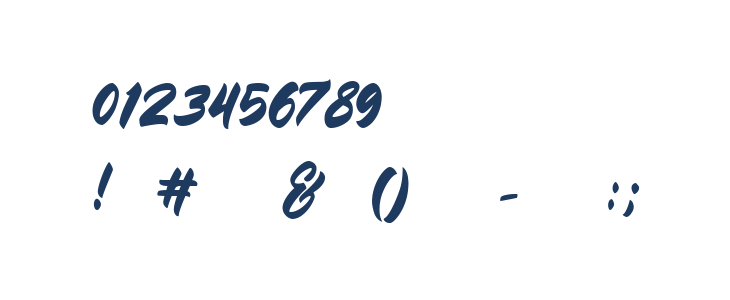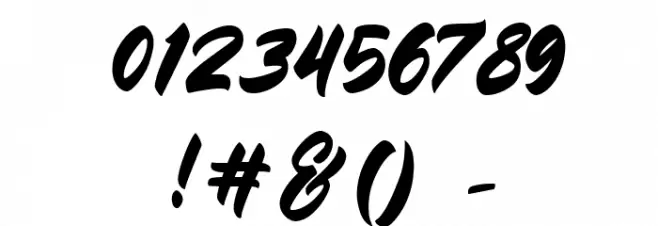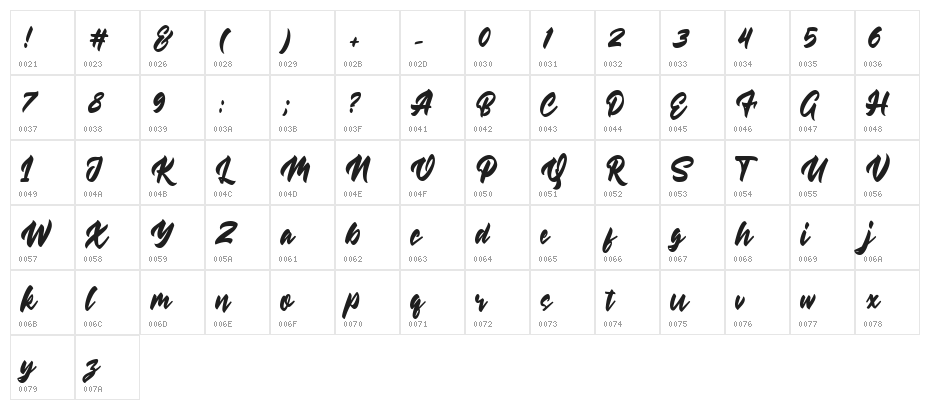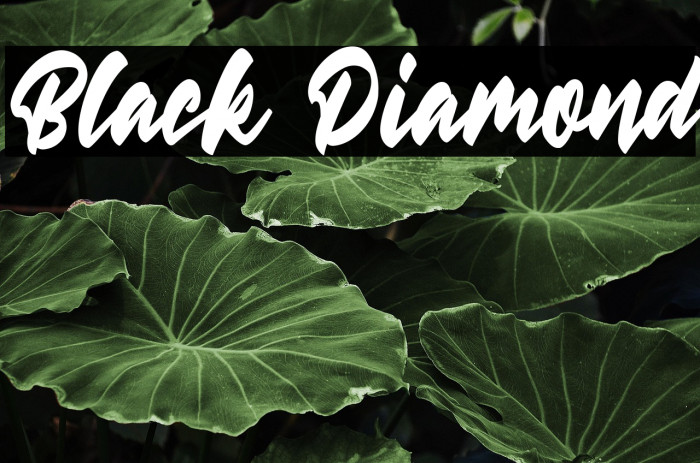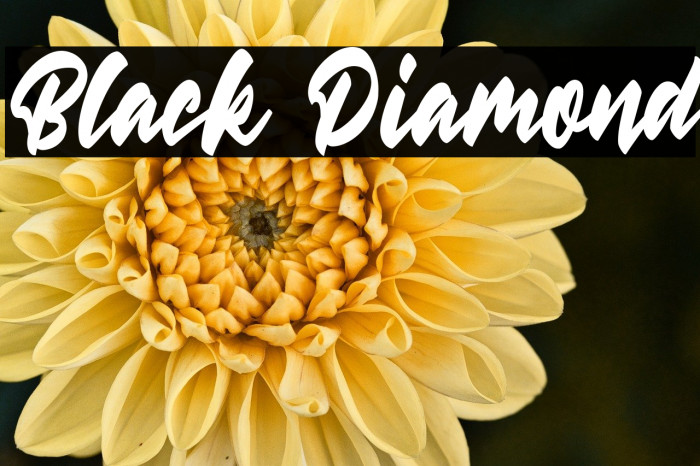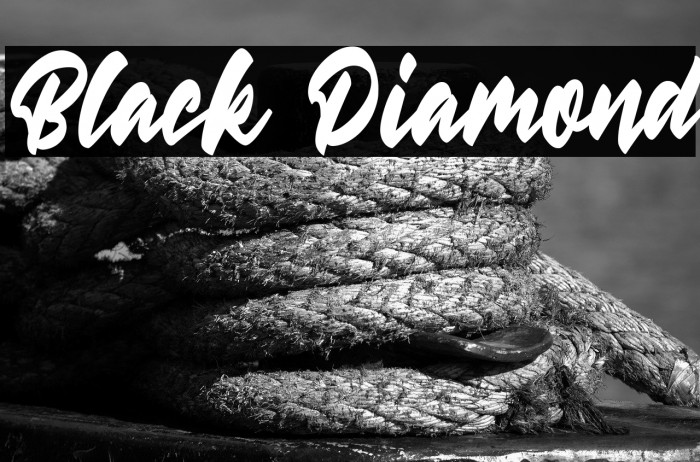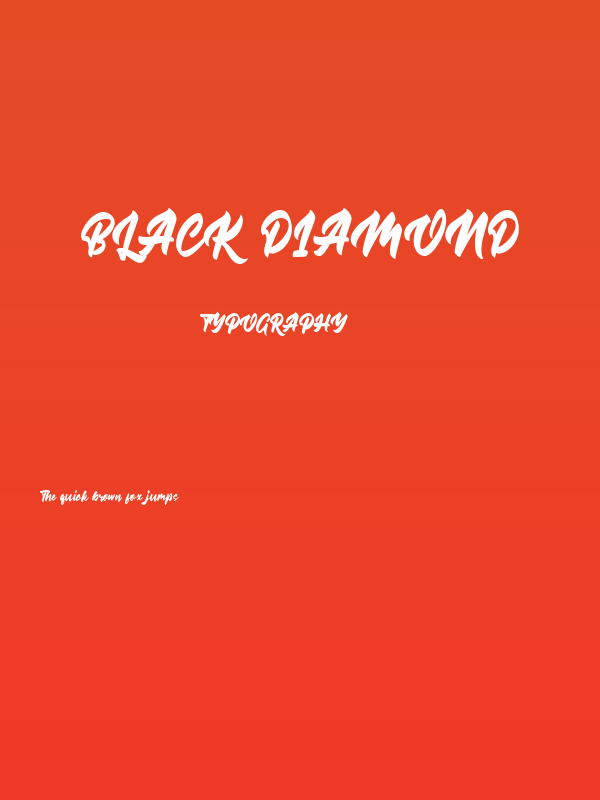
Black Diamond Font
Black Diamond Description
This font features a bold and dynamic script style, characterized by its thick, flowing strokes and a sense of movement. The letters are connected in a cursive manner, giving it a handwritten appearance. The uppercase letters are particularly striking, with dramatic flourishes and a sense of elegance. The lowercase letters maintain the same fluidity, ensuring readability while adding a personal touch. The numerals and special characters are consistent with the overall style, making it suitable for various creative applications. Its bold presence makes it ideal for attention-grabbing designs.